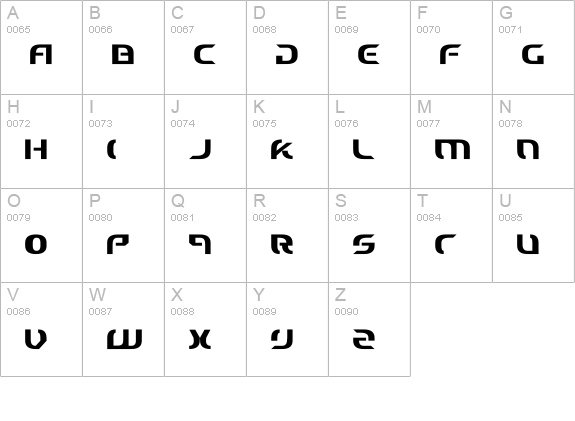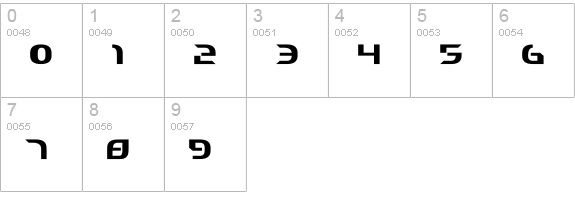
Introducing Starfighter Cadet font, a captivating typeface that will transport you to the outer reaches of the galaxy. This font embodies the spirit of adventure, evoking a sense of excitement and wonder. With its sleek lines and futuristic design, Starfighter Cadet is perfect for projects that require a touch of otherworldly charm. Free your imagination with Starfighter Cadet font, as it effortlessly combines elegance with a hint of rebelliousness. Its smooth curves and sharp angles create a harmonious balance, making it versatile for a wide range of applications, from posters and flyers to logos and branding. But what makes Starfighter Cadet truly unique is its availability as a free download at FontsMarket.com. This means that designers, artists, and creators alike can easily access this remarkable font and incorporate it into their projects without any limitations. Embrace the freedom to explore and experiment, as Starfighter Cadet opens up a world of possibilities for your creative endeavors. Whether you're embarking on a cosmic adventure or simply seeking to add a touch of intergalactic flair to your designs, Starfighter Cadet font is the perfect companion. Its bold presence and captivating style will leave a lasting impression, captivating audiences and transporting them to a realm beyond the ordinary. So, don't miss out on this stellar opportunity. Download Starfighter Cadet font for free at FontsMarket.com and embark on a journey of creativity that knows no bounds. Let your imagination soar among the stars with this extraordinary typeface, and watch as your designs take flight.